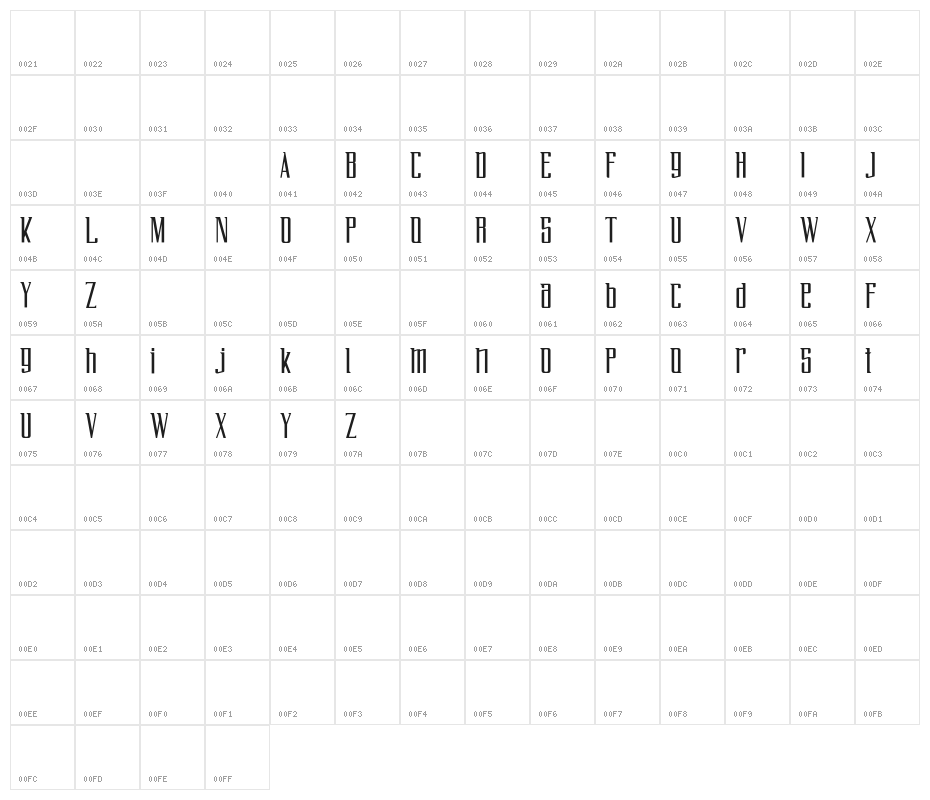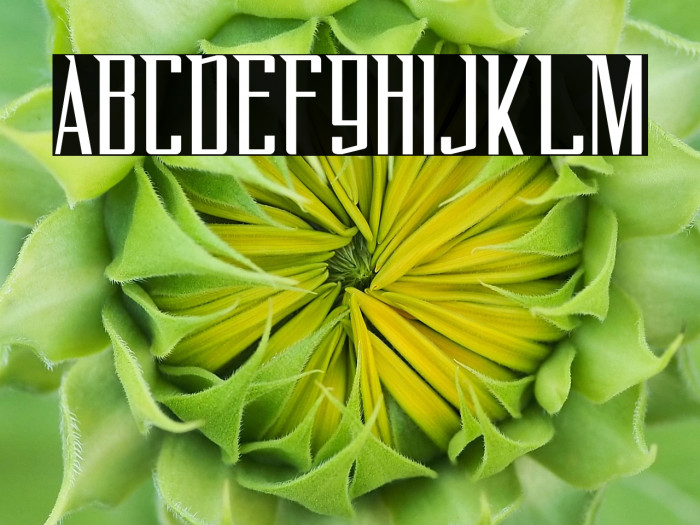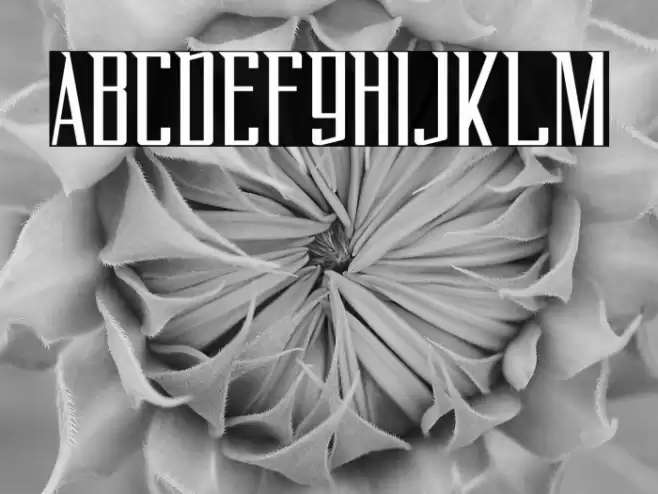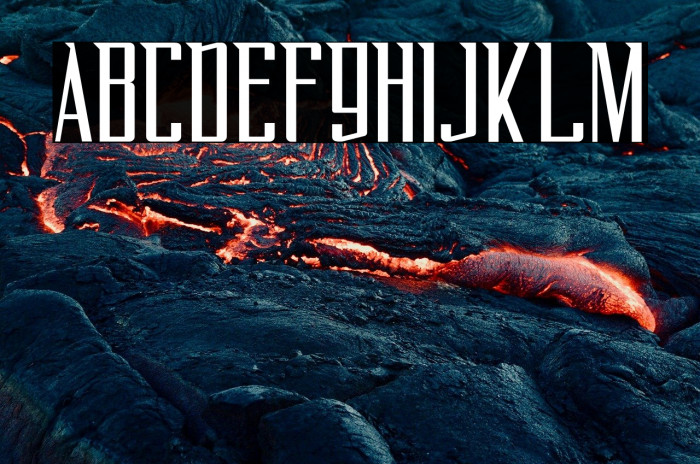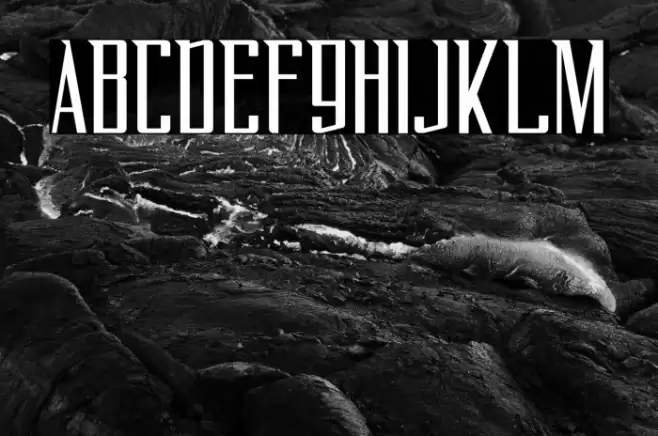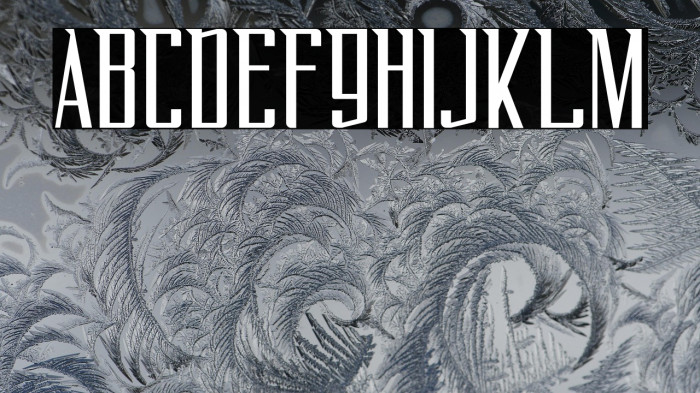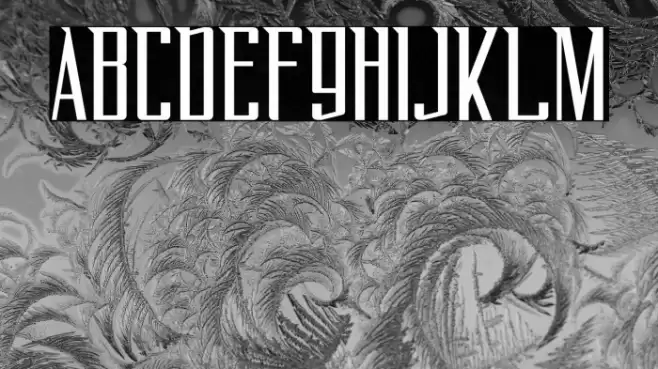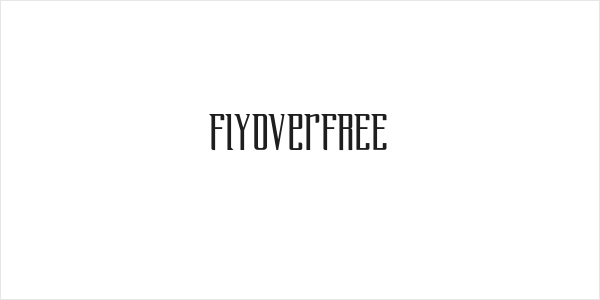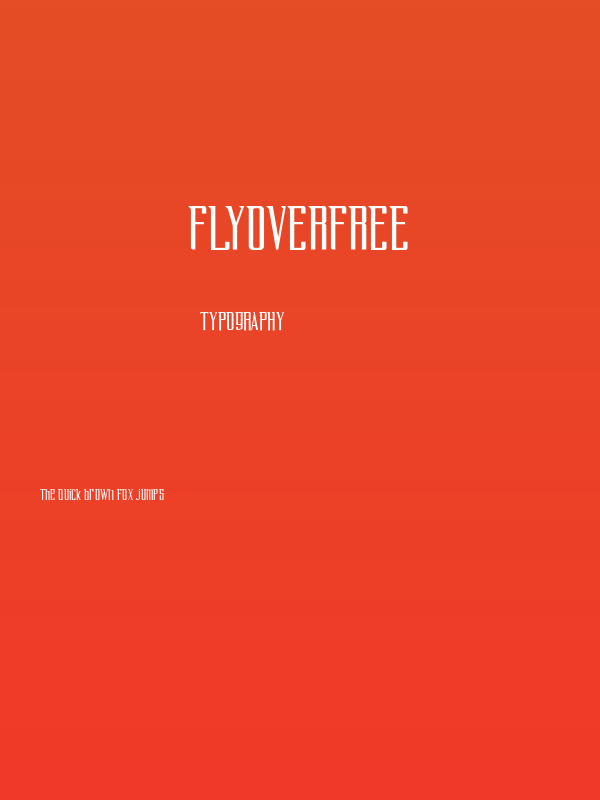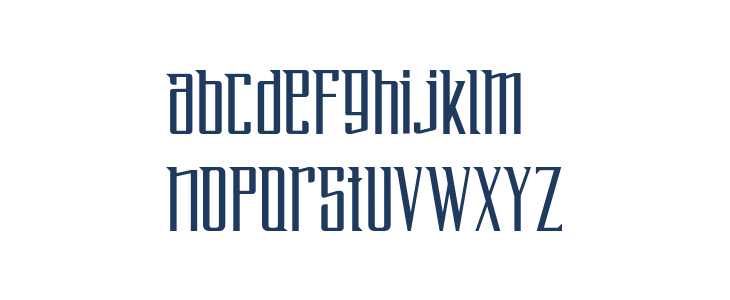
FlyOverFREE Font
FlyOverFREE Description
This font features a unique and modern design with elongated, narrow characters that create a striking visual impact. The uppercase and lowercase letters maintain a consistent height, giving the font a uniform appearance. The vertical strokes are bold and prominent, while the horizontal strokes are thinner, adding a dynamic contrast. The characters have a slightly condensed width, enhancing their tall and sleek look. The font's style is both contemporary and decorative, making it suitable for eye-catching designs. Its distinct appearance is ideal for projects that require a bold statement.
| Proposed Projects | Ideal for headlines, posters, branding, and any design that requires a bold, modern look. |